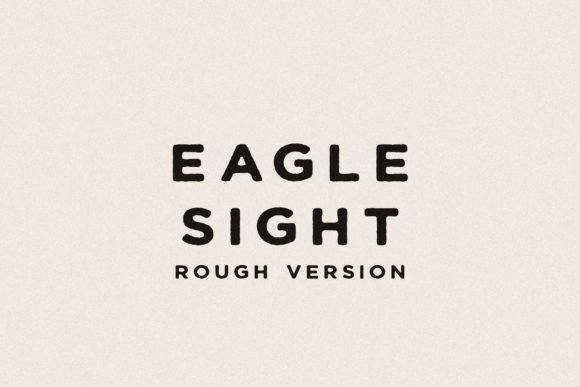
Behold Eagle Sight Rough Font - a typographic wonder that captures the essence of vintage charm with a touch of modern elegance. Its captivating sans-serif design, meticulously crafted by the renowned Mikhail Fukurou, embodies simplicity and grace, making it an ideal choice for those seeking a timeless and sophisticated font.
Immerse yourself in the world of Eagle Sight Rough and let your creativity soar. With its clean lines, classic structure, and versatile range of weights and styles, this font is a versatile chameleon, adapting seamlessly to a myriad of projects. Whether you're crafting eye-catching logos, designing elegant brochures, or creating captivating social media graphics, Eagle Sight Rough promises to elevate your designs with a touch of vintage allure.
Journey back to the days of old, where timeless stories and enchanting narratives unfolded on weathered pages. Eagle Sight Rough transports you to that era, evoking a sense of nostalgia and authenticity. It's perfect for creating vintage book covers, retro posters, and captivating movie titles that exude an air of mystery and intrigue. Let the allure of the past inspire your designs and captivate your audience with a font that speaks to their souls.
But Eagle Sight Rough is not merely a vintage font; it's a bridge between the past and the present. Its clean lines and modern sensibilities make it equally suitable for contemporary projects. Create stunning website designs, sleek branding materials, and eye-catching social media posts that resonate with today's tech-savvy audience. The versatility of Eagle Sight Rough knows no bounds, allowing you to express your creativity in countless ways.
So, embark on a typographic adventure with Eagle Sight Rough and unlock a world of possibilities. Experience the fusion of vintage charm and modern elegance, and let your designs speak volumes with a font that captivates and inspires. Embrace the power of Eagle Sight Rough and watch your creations come to life with a touch of timeless beauty.